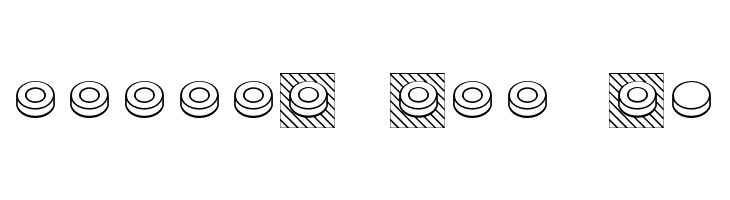
An elegant script font with flowing curves and intricate swashes.
A decorative, grid-based font with intricate patterns and textures.
A playful, rounded font with bold, smooth curves and a modern look.
A bold, distressed font with a grunge texture and rugged appearance.
A bold, dynamic script font with elegant curves and flourishes.
A bold, hand-drawn font with an energetic, graffiti-like style.
A playful, handwritten font with rounded, whimsical characters.
Ornamental dingbat font with geometric and floral motifs.
A modern, geometric font with clean lines and rounded edges.
A bold, angular font with a modern twist on Gothic style, featuring high contrast and sharp edges.
A playful, hand-drawn font with bold and irregular strokes.
A bold, slanted font with a textured, dynamic style.
A bold, rounded font with a playful and chunky style.
A bold, playful font with thick, rounded edges and a strong outline.
Decorative font featuring checker-like circular game pieces in filled and outlined styles.
A bold, shattered glass effect font with a dynamic and decorative style.
A bold, shattered glass effect font with dynamic, fragmented characters.
A bold, geometric font with intricate triangular patterns.
A bold, geometric font with sharp, angular letterforms.
A bold, geometric font with a triangular mesh pattern, ideal for decorative use.
A bold, brush script font with a textured, hand-painted look.
A bold, geometric font with sharp angles and a strong, industrial presence.
A bold, geometric font with a futuristic and assertive style.
A bold, italicized font with a dynamic, angular design.
A bold, italicized font with sharp, angular edges and a futuristic look.
A bold, brush-style script font with dynamic curves and elegant flourishes.
A bold, energetic, hand-drawn style with a playful and dynamic appearance.
A dynamic, brush-style font with a slanted, energetic appearance.